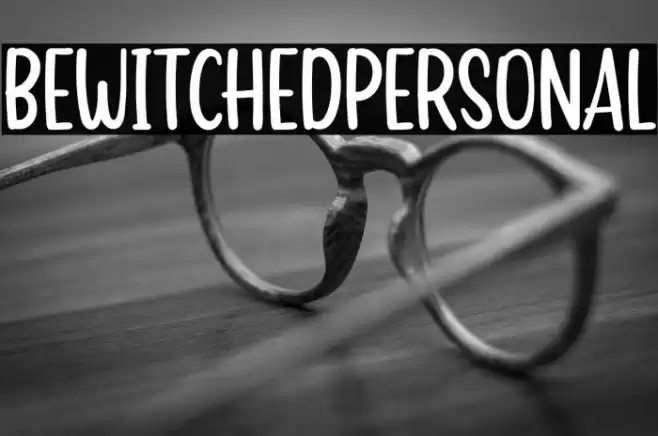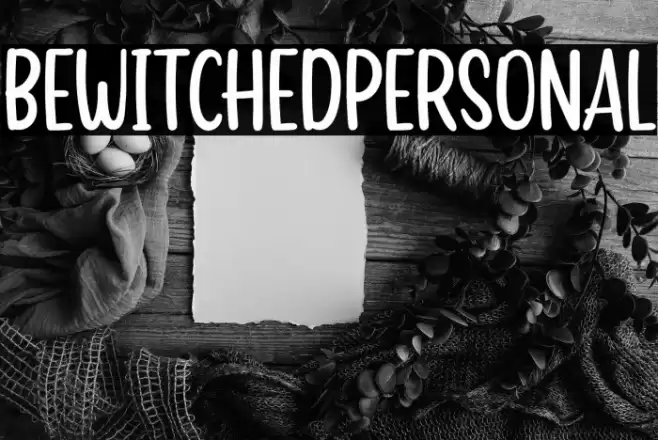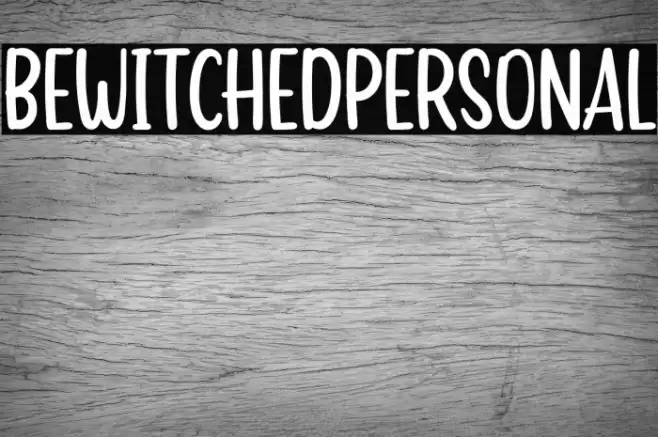
BEWITCHEDPERSONAL Font
BEWITCHEDPERSONAL Description
This font features a playful and whimsical handwritten style, characterized by its bold and rounded letterforms. The uppercase letters are tall and slightly narrow, while the lowercase letters maintain a consistent height, creating a harmonious balance. The strokes are smooth and fluid, giving the font a friendly and approachable appearance. The overall design is casual yet stylish, making it suitable for a variety of creative projects. The font's unique personality is enhanced by its slightly irregular baseline, adding to its charm and individuality.
A playful, bold handwritten font with smooth, rounded letterforms from Uncategorized fonts.
- Proposed Projects: Ideal for greeting cards, children's books, playful branding, and social media graphics.
- Overall Style: Playful